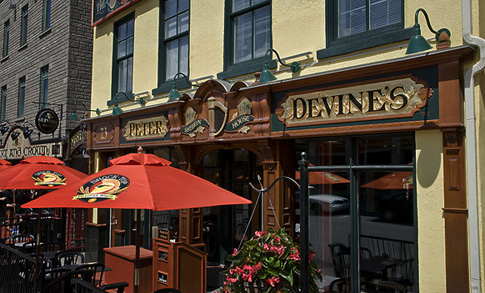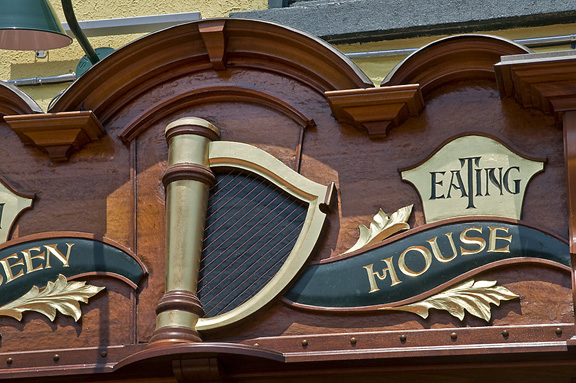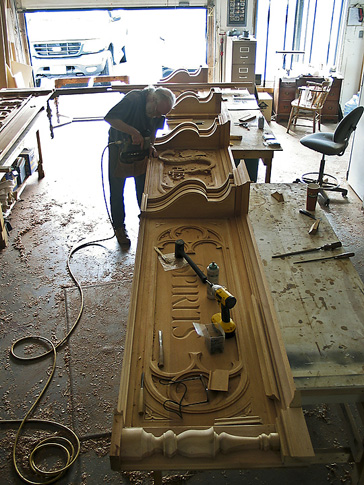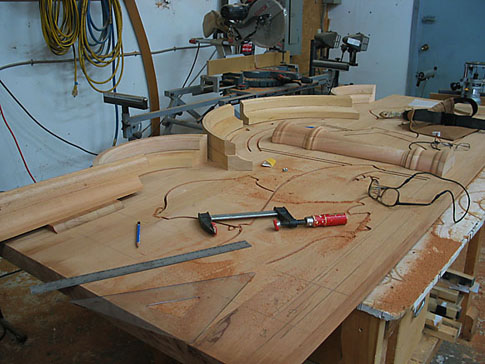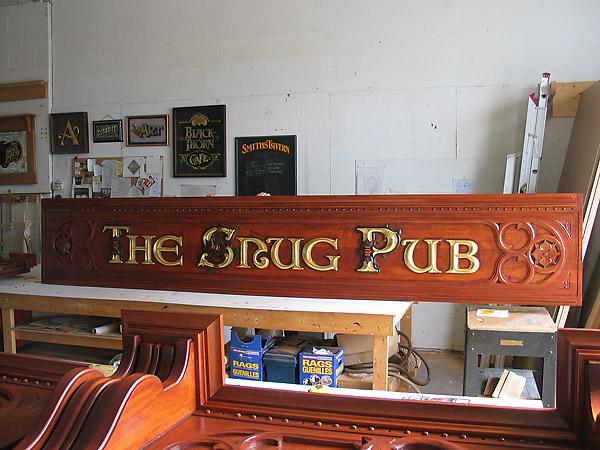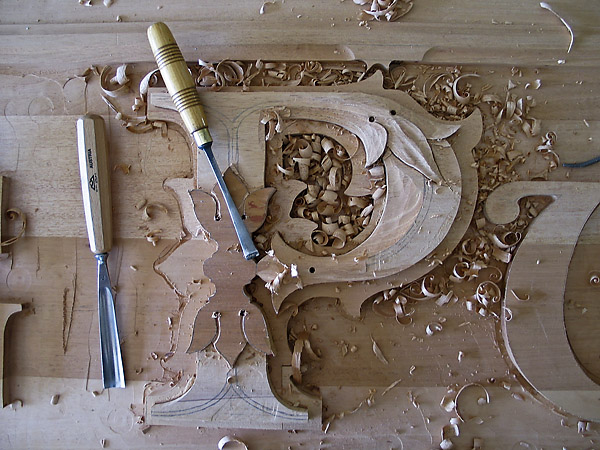
Just needed to add how much I'm enjoying reading all the posts here as well. Summer is such a busy time for us all and it's difficult to find time for everything that needs attending everyday. I do stop in here at least 4 or 5 times a week and admire the work and interest of everyone. Just finished a large job which has kept me busy since the beginning of June and although not installed yet thought it might be worth sharing.
the rosette is a small part of a similar and in fact part of the same group as Peter Devine's which was from last summer. I just got the "portfolio" shot a few weeks ago.
Doug, this is fantastic work, absolutley fantastic...
Is the rosette carved in maple? I, just love the look of hand done work with the tool marks, It just shows love and passion for what you are doing, thanks for sharing...Pat.
Wow! Doug you pulled it off again mate. Astonishing workmanship! I think all those trips to England photographing old pubs have certainly paid off with your style.
If you were around 100 years ago over here I bet your name would be on every pub sign, this is as good as it gets..... The Queen of England would of made you a (Sir) by now if you were a Brit.
Sir Doug, truly amazing work
As I have said before your carving skills are astonishing. Thank you so much for sharing these photos with all of us wannabee carvers.
You are, as one of Noel's glass pieces from years ago said, an "Executive Craftsman" in the truest sense.
Not just the carving skills...you are doing a killer job on the woodworking! Always impressed!
Thanx Guys....just trying to be a signpainter. Davey....when the Queen visited here this summer she brought this up with me. I suggested Sir Reginald but Betty said that name was taken...so she's thinking about Sir Jeremy Plodsnot. I'll just have to wait I think. Pat....this is all mahogany as it's an excellent outdoor wood and carves like a dream. The harder the wood the more detail you can get but maple I'm guessing would be all but impossible on something that size. It's about 30ft. Have been having a great time with the wood working parts as Mike suggests.....in fact it is becoming my favourite part of every job. I'm not a real carver as in figures and faces etc....just attached to all the architectural things.
Here's a couple more from same Devine's
For an old guy you do really good work.
You are simply amazing. A true artist and craftsman in the highest degree. Thanks for sharing with us.
Your sharings never cease to amaze!
Thanks for the shots, I'll study them some more...
As always, the varity of skills that you exhibit are amazing.
Thank you for sharing your beautiful work with us.
Thanx for all the kind words guys....what can I say...is still fun to go to work everyday when you have something like this to challenge you. Bob....me thinks this here puppy will weigh in at about 500LBS. I've just been using "mandralics" to move the sections around the shop. Used to have the weight of some of these woods written down per board foot...made that calculation easy. So sorry....that's as close as I can guess.
A couple more from the snug pub
Doug, your craftsmanship is stunning. We're not worthy! Danny made the point about no place in the US that would be willing to pay for this calibre of work; of that I'm not so sure - but one thing I've seen, more often, is an unwillingness or indifference to maintain it. I long ago stopped selling carved and varnished mahogany because clients couldn't be bothered to keep up with regular maintenance, and it broke my heart to see nice work go to the dogs without it.